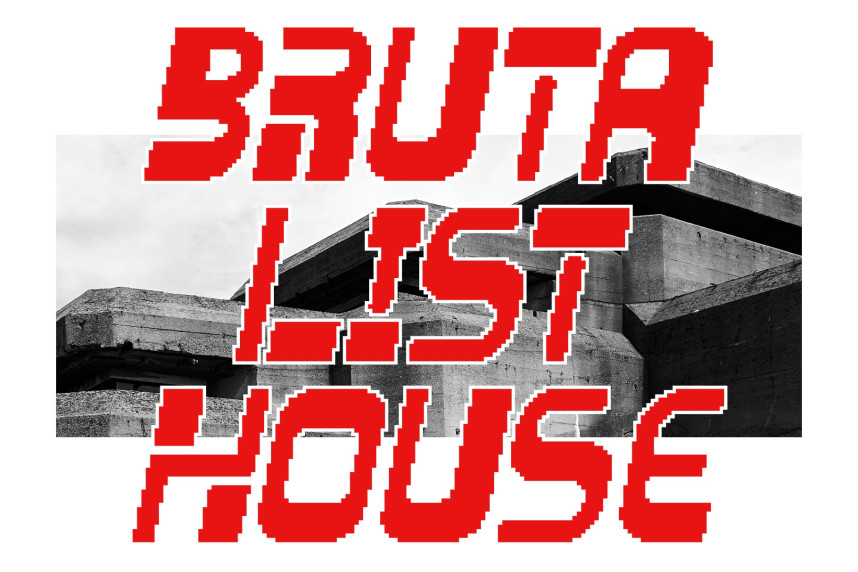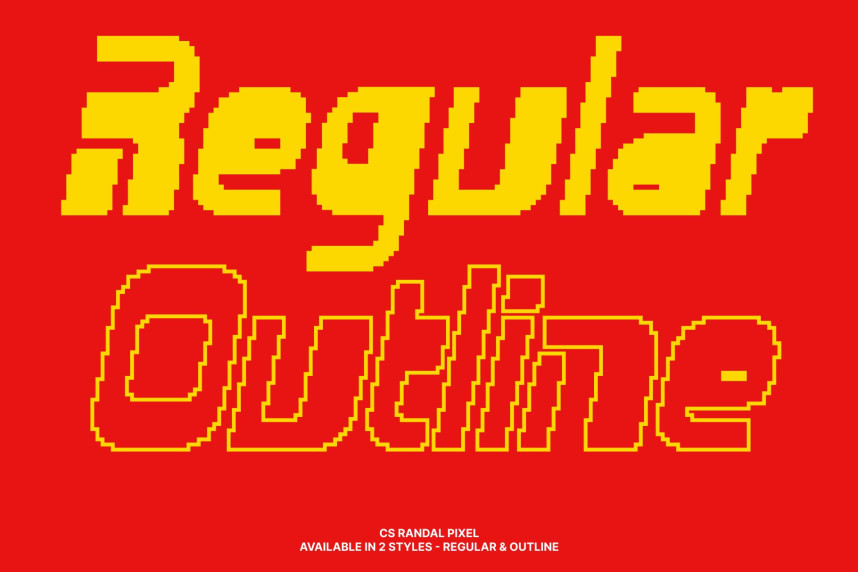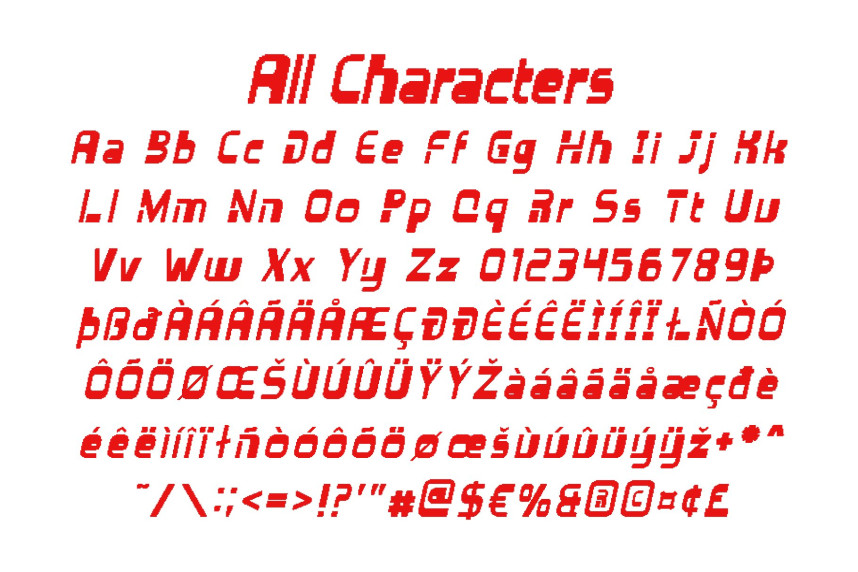
CS Randal Pixel Font
CS Randal Pixel Font – Brutalist Sans Serif with Sharp Industrial Edge Experimental Design with Bold Brutalist Attitude. This is a stylish and experimental sans serif font built on the foundations of brutalist design. Its sharp edges, assertive forms, and unapologetically rigid construction create a strong visual presence that feels raw and industrial. Each letterform rejects softness and ornamentation, embracing a bold, architectural approach that commands attention.